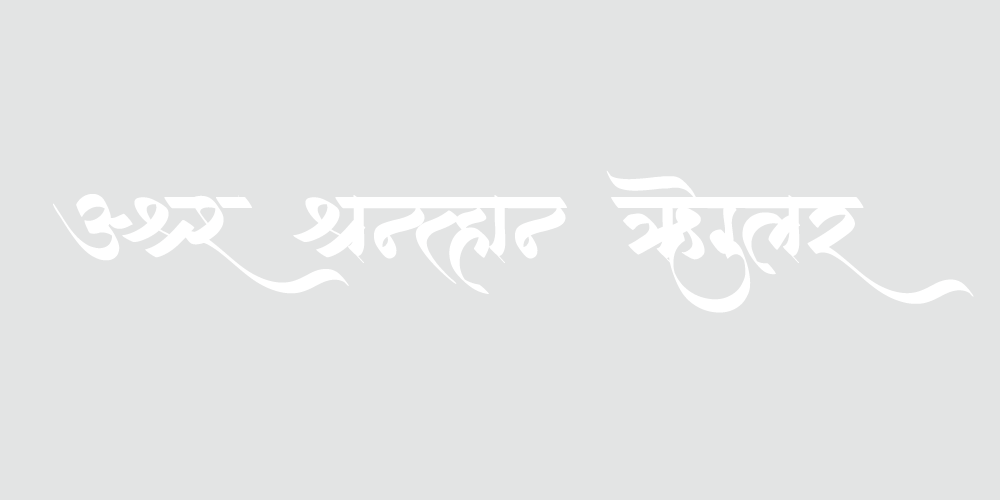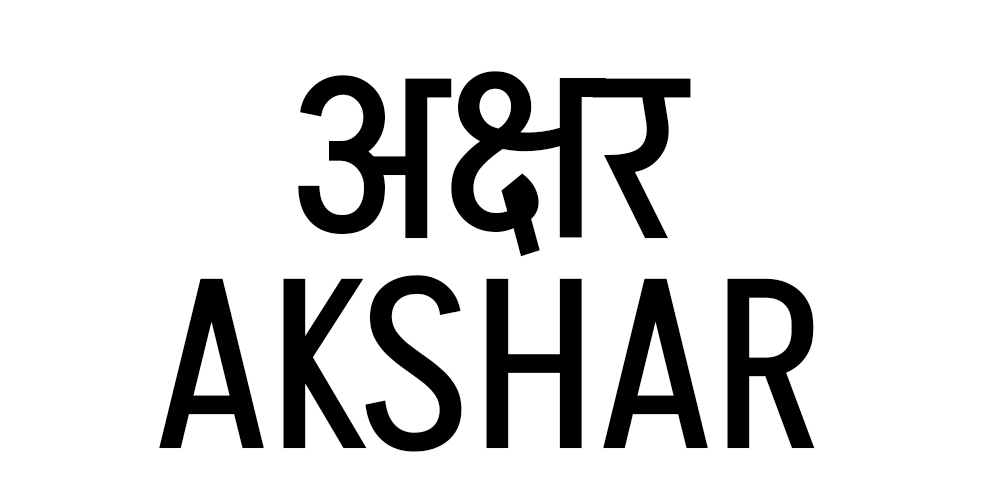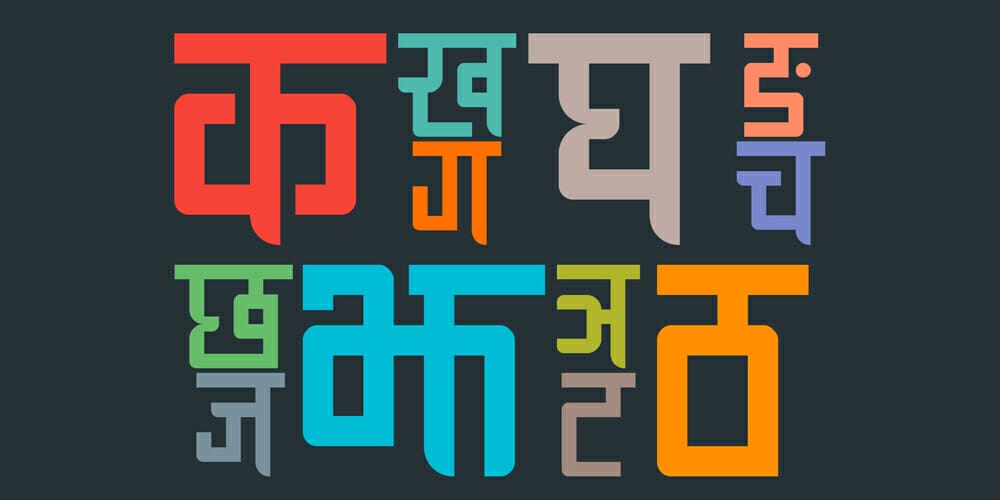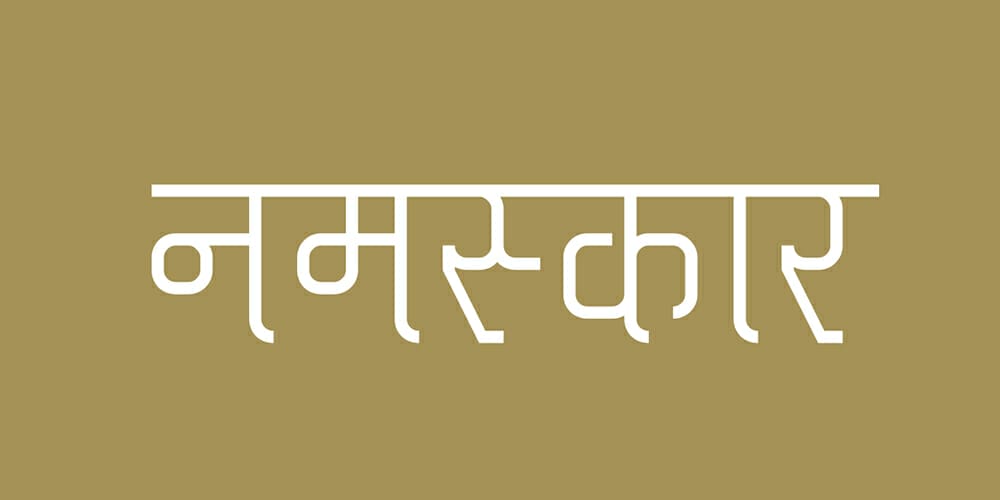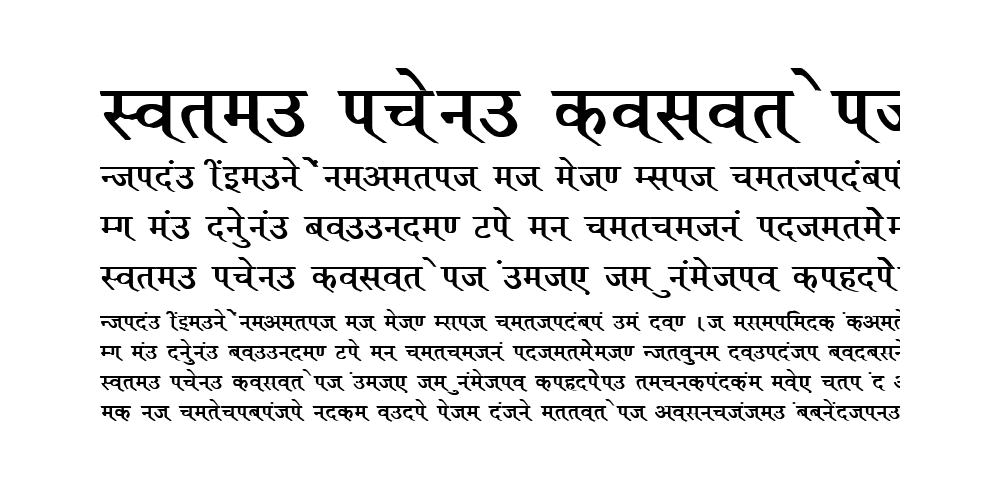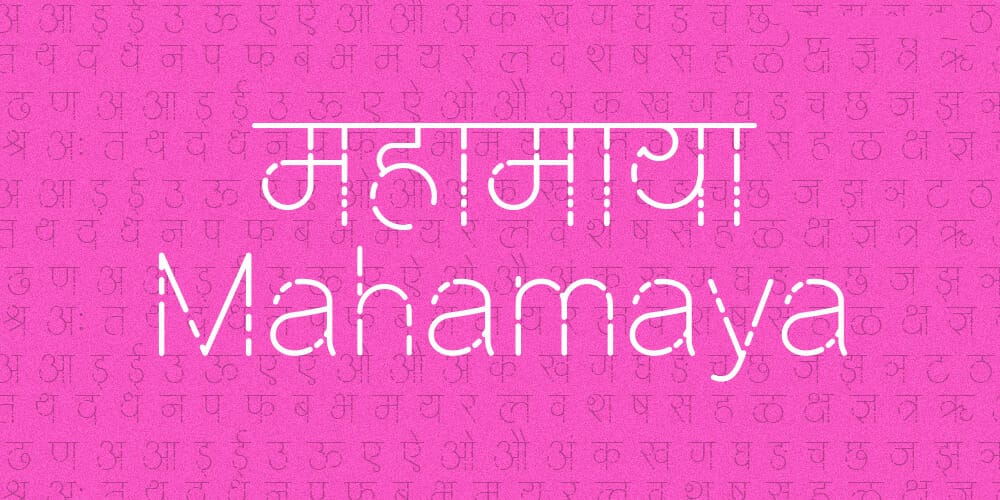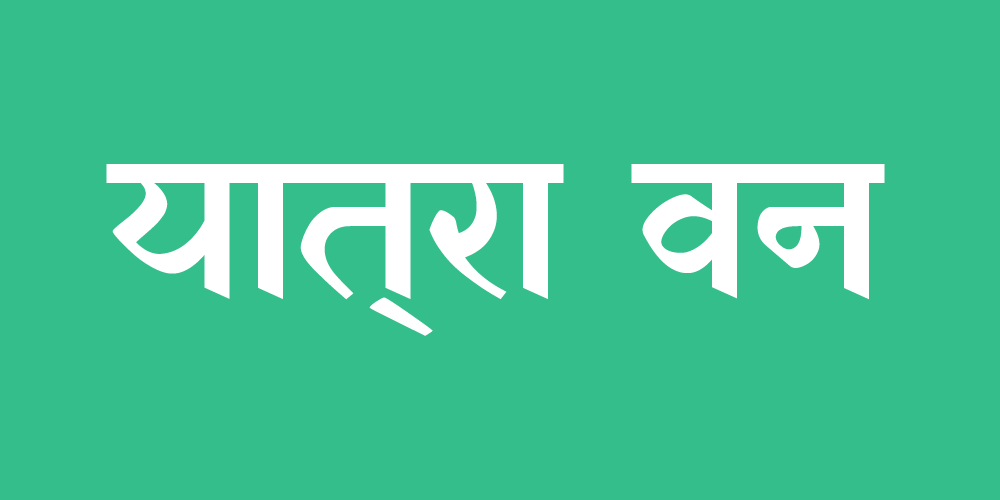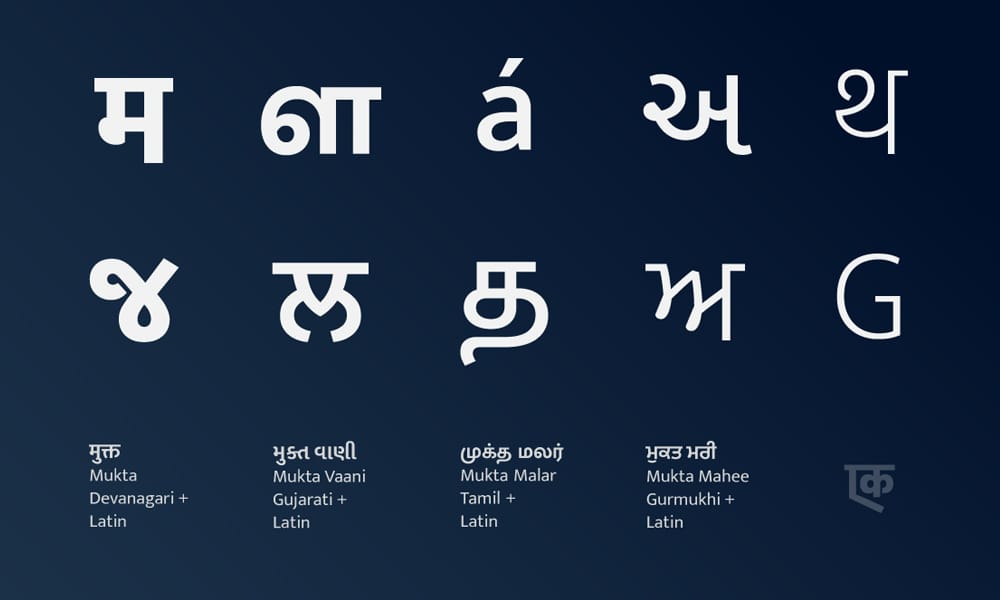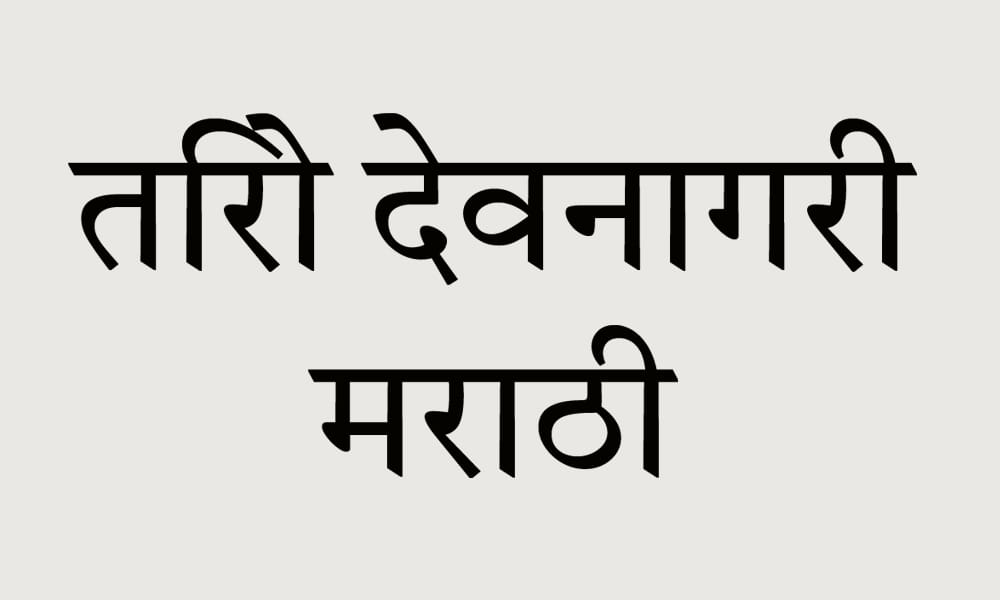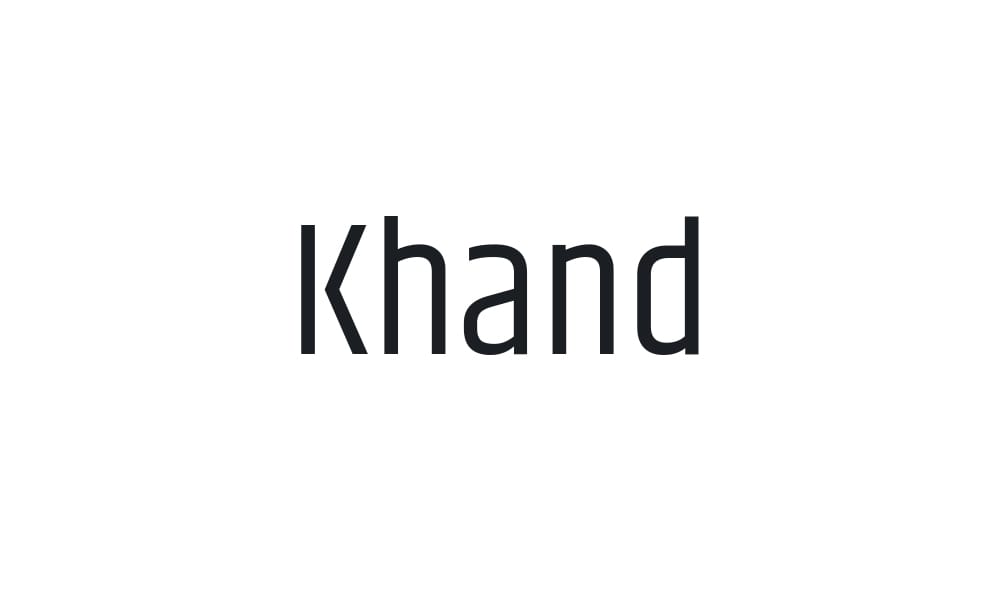
Stylish Marathi Fonts: Free Downloads for Designers
Marathi typography is more than just a way to write—it’s a form of artistic expression that brings culture and creativity to life. Whether you’re designing wedding invitations, creating social media graphics, or working on branding projects, the right stylish Marathi fonts can elevate your work and make it stand out.
In today’s digital age, where visuals play a crucial role in communication, having access to stylish Marathi fonts online is a game-changer for designers and content creators. From traditional calligraphy to modern typefaces, these fonts allow you to infuse authenticity and elegance into your projects.
This listicle compiles some of the best stylish Marathi fonts free download options available, catering to a variety of design needs. Whether you’re looking for marathi calligraphy fonts for a cultural project or trending marathi fonts for contemporary designs, this guide has you covered. Let’s dive into the world of Marathi typography and explore fonts that will inspire your next creative endeavor.
Biling Mi Marathi Font
Biling Mi is a versatile and stylish Marathi font that combines traditional aesthetics with modern design. Its clean lines and balanced proportions make it perfect for both print and digital media. Whether you’re working on branding, social media posts, or editorial designs, Biling Mi offers a professional yet creative touch. The font is available for free download, making it accessible for designers on a budget. Its unique blend of elegance and simplicity ensures it stands out in any project.
Akshar Typeface
Akshar Typeface is a modern and minimalist Marathi font that’s ideal for contemporary designs. Its geometric structure and sleek appearance make it a favorite among designers working on tech-related projects or modern branding. The font is open-source and available for free download, making it a great choice for startups and entrepreneurs. Whether you’re designing a website or creating marketing materials, Akshar Typeface delivers a clean and professional look.
Mahamaya Font
Mahamaya is a decorative Marathi font that exudes elegance and sophistication. Its intricate details and flowing strokes make it perfect for wedding invitations, cultural events, and festive designs. This font is available for free download, making it a popular choice for designers looking to add a touch of tradition to their projects. Its versatility allows it to be used in both digital and print media, ensuring your designs leave a lasting impression.
Martel
Martel is a serif Marathi font that combines classic typography with modern design elements. Its bold and structured appearance makes it ideal for editorial designs, book covers, and branding projects. The font is open-source and available for free download, making it a great resource for designers and content creators. Martel’s timeless appeal ensures it remains relevant across various design trends.
AMS Manthan Regular
AMS Manthan Regular is a traditional Marathi font that’s perfect for cultural and religious projects. Its classic design and readability make it a popular choice for print media, such as books and newspapers. The font is available for free download, making it accessible for designers working on heritage-related projects. Its simplicity and authenticity make it a must-have in your font collection.
Rhodium Libre
Rhodium Libre is a stylish and modern Marathi font that’s perfect for creative projects. Its unique design and versatility make it suitable for branding, social media graphics, and digital content. The font is open-source and available for free download, making it a great choice for designers looking to experiment with new styles. Its contemporary appeal ensures it stands out in any design.
Kruti Dev 111
Kruti Dev 111 is a classic Marathi font that’s widely used in official documents and print media. Its clean and straightforward design makes it highly readable, making it a popular choice for formal projects. The font is available for free download, making it accessible for designers working on professional projects. Its timeless design ensures it remains a staple in the world of Marathi typography.
Biryani
Biryani is a modern and stylish Marathi font that’s perfect for contemporary designs. Its sleek and minimalist appearance makes it ideal for branding, web design, and digital content. The font is open-source and available for free download, making it a great choice for startups and entrepreneurs. Its clean and professional look ensures it stands out in any project.
Ananda Chautari Devanagari Font
Ananda Chautari is a decorative Marathi font that’s perfect for festive and cultural designs. Its intricate details and flowing strokes make it ideal for wedding invitations, posters, and social media graphics. The font is available for free download, making it a popular choice for designers looking to add a touch of tradition to their projects. Its versatility ensures it can be used in both digital and print media.
Modak Font
Poppins
Poppins is a modern and stylish Marathi font that’s perfect for contemporary designs. Its sleek and minimalist appearance makes it ideal for branding, web design, and digital content. The font is open-source and available for free download, making it a great choice for startups and entrepreneurs. Its clean and professional look ensures it stands out in any project.
Khand Font
Tiro Devanagari Marathi
Mukta